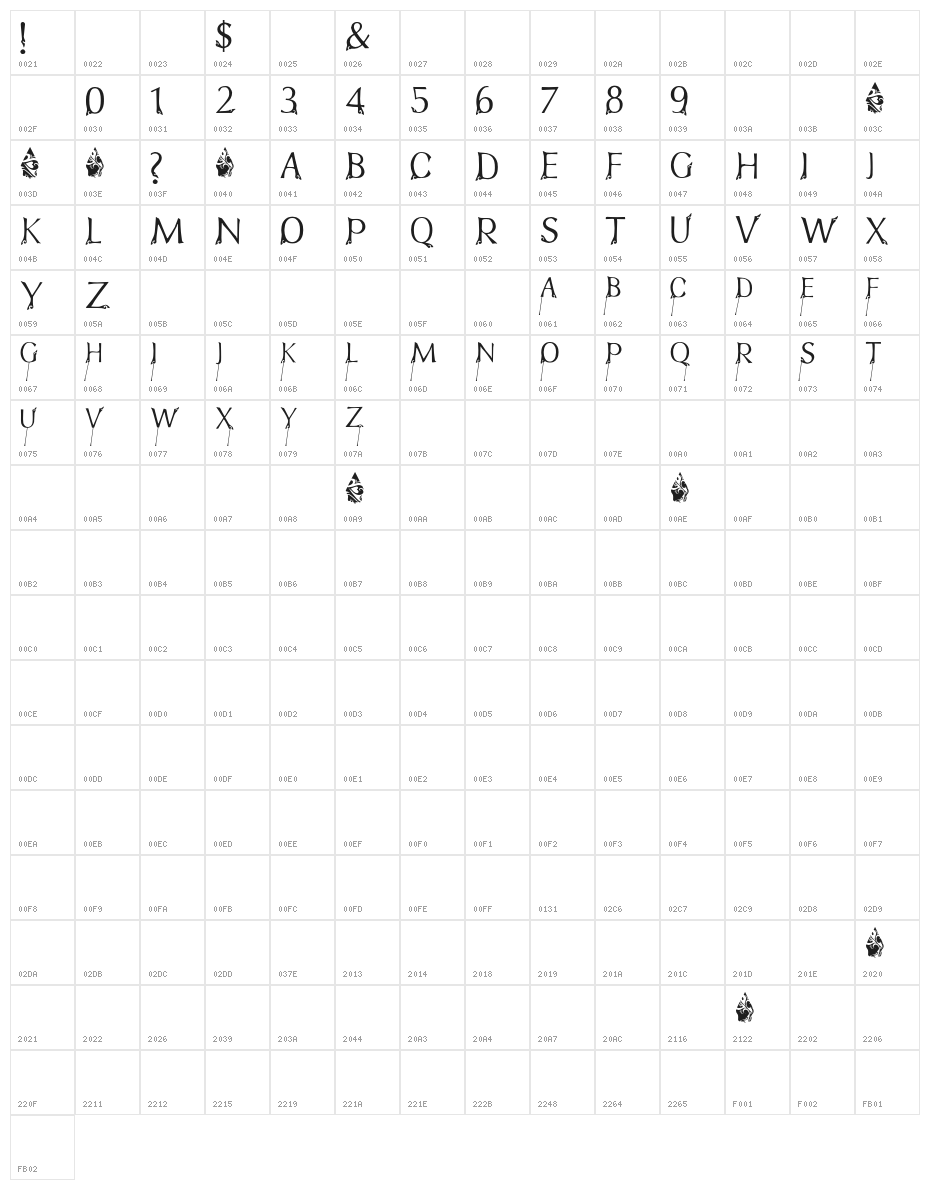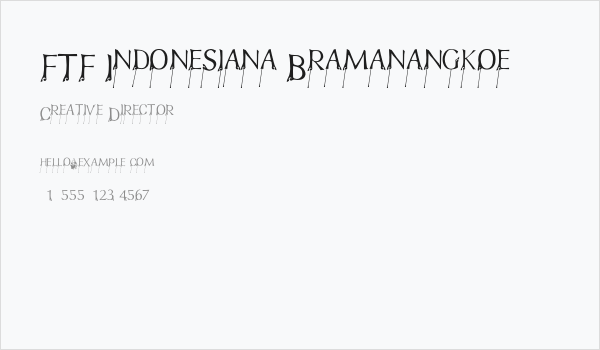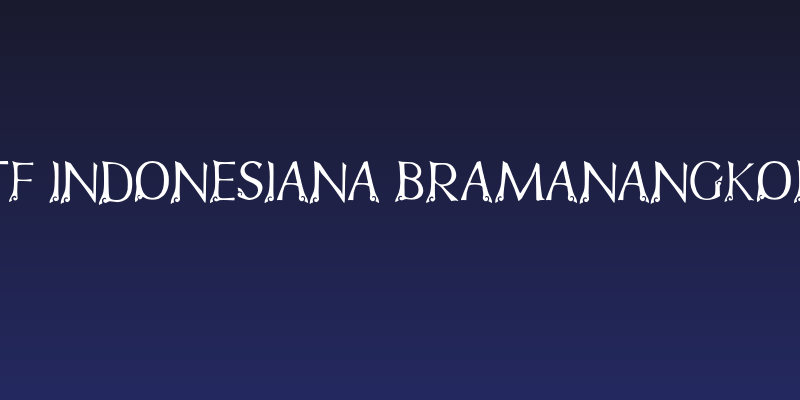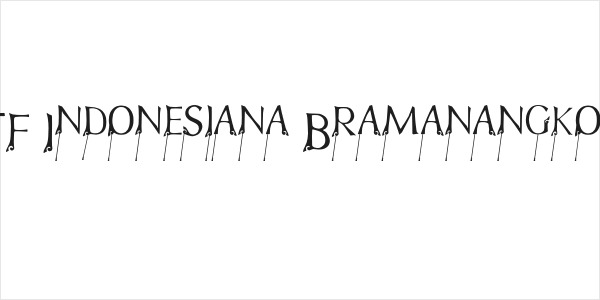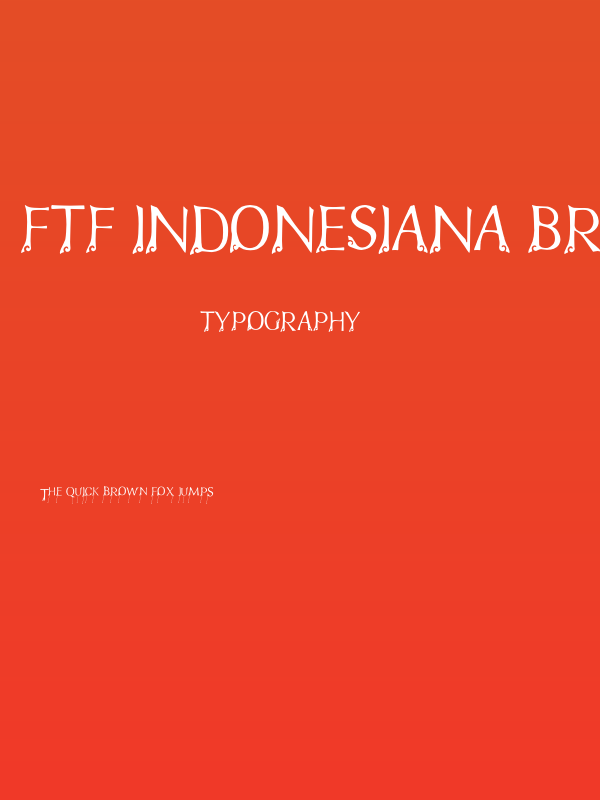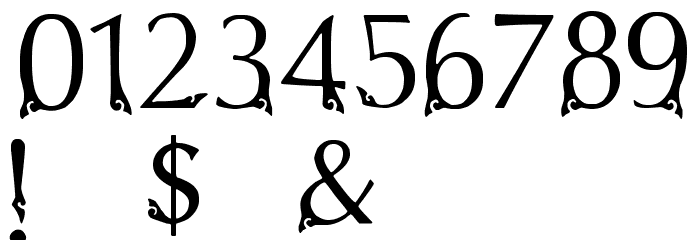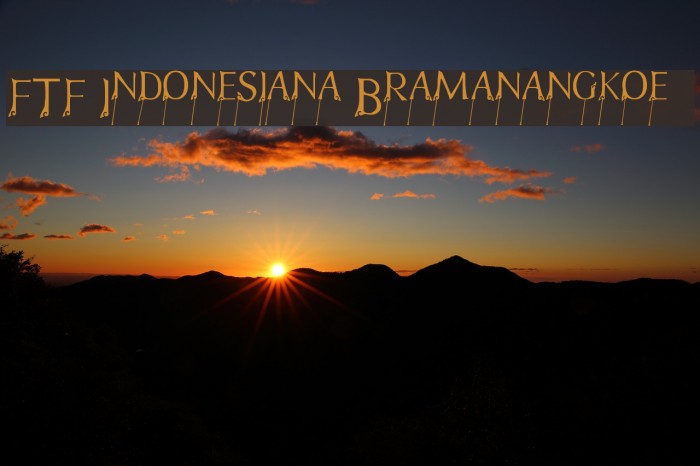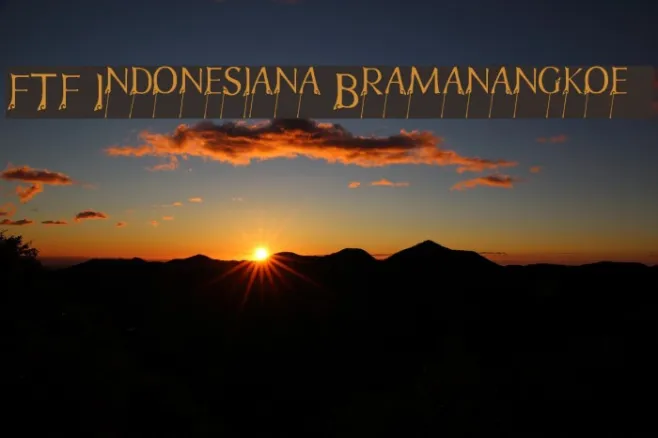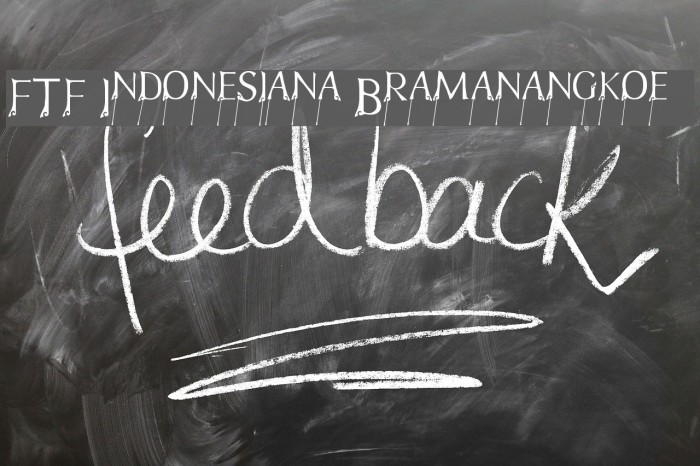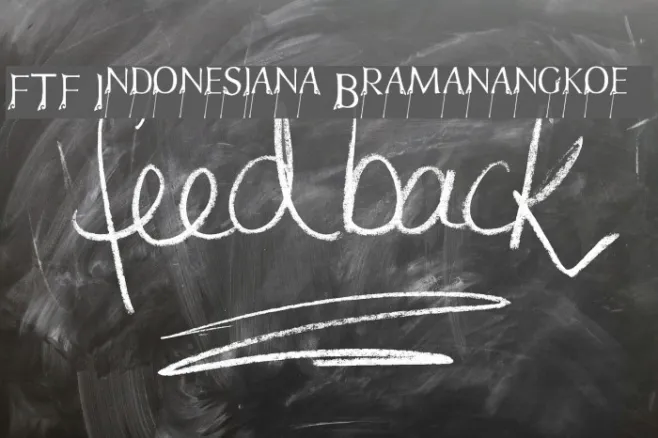
FTF Indonesiana Bramanangkoe Font
FTF Indonesiana Bramanangkoe Description
This font features a unique and decorative style with intricate details that resemble traditional Indonesian motifs. The characters are adorned with elegant, sweeping curves and pointed serifs, giving them a distinct and artistic appearance. The uppercase and lowercase letters maintain a consistent design, with the uppercase being slightly more pronounced. The numbers and special characters follow the same ornate theme, making the font suitable for creative and cultural projects. The overall design is both sophisticated and eye-catching, perfect for making a bold statement.
| Proposed Projects | Ideal for cultural event posters, artistic branding, invitations, and decorative headings. |